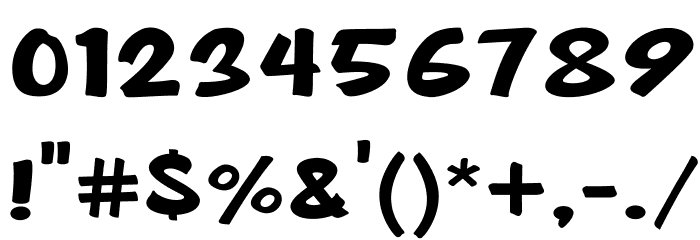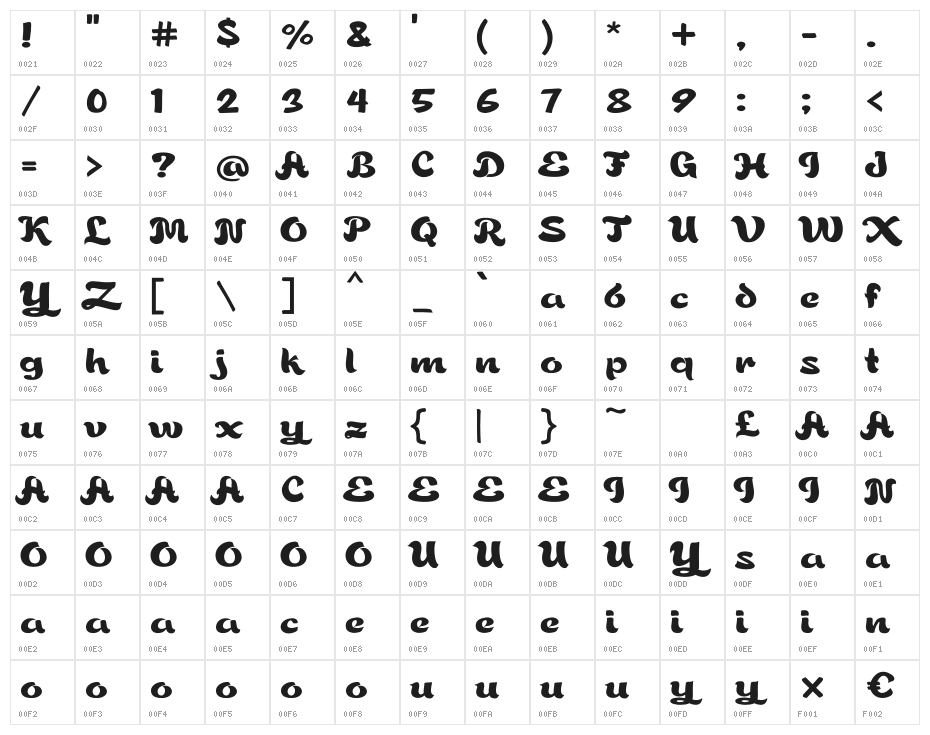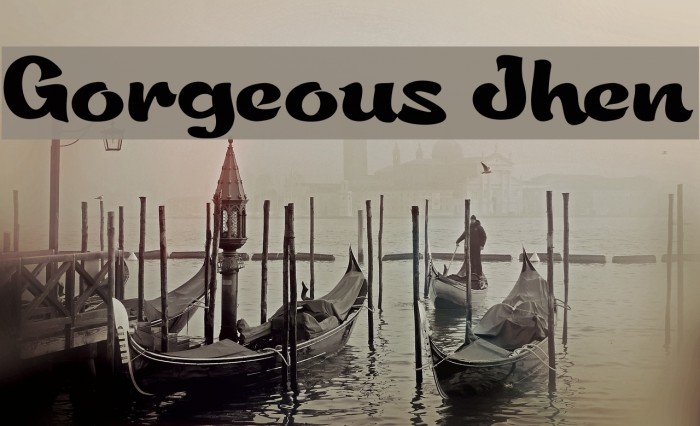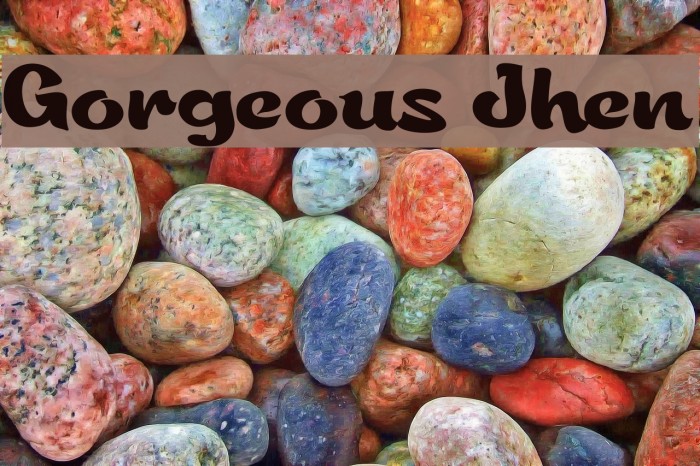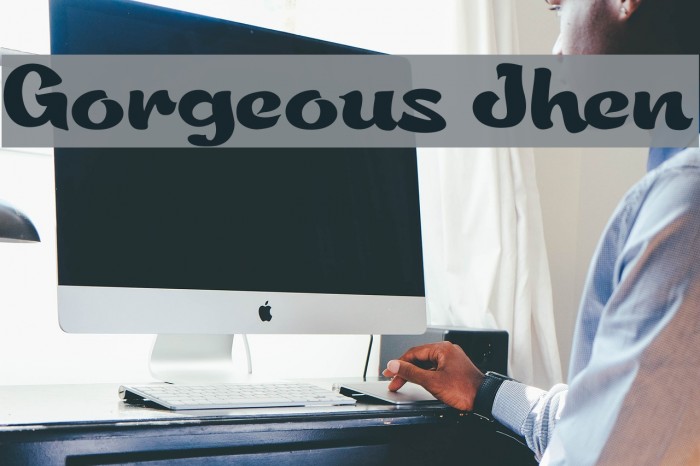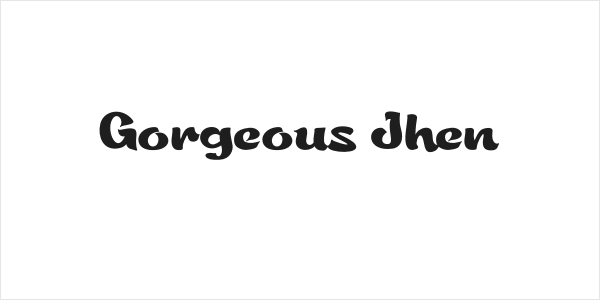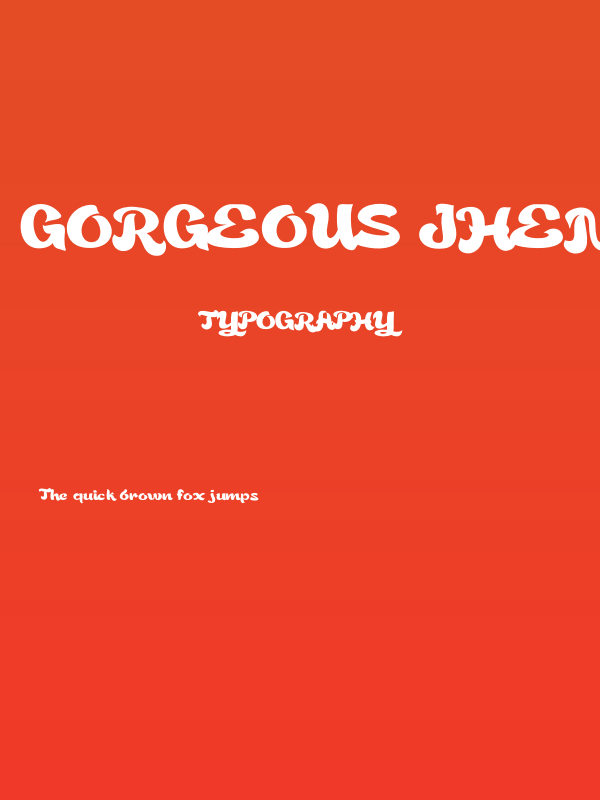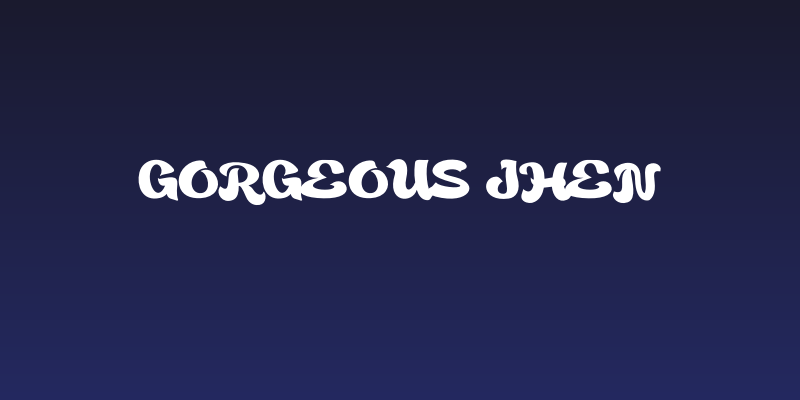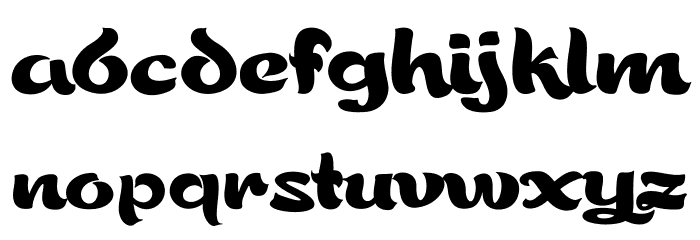
Gorgeous Jhen Font
Gorgeous Jhen Description
This font features a bold and expressive style with a strong presence. The characters are crafted with thick strokes and rounded edges, giving it a playful yet assertive look. The uppercase letters are particularly striking, with a sense of movement and flair, while the lowercase letters maintain a consistent flow. The numerals and special characters are equally bold, ensuring readability and impact. This font's unique style makes it suitable for projects that require a touch of personality and boldness.
| Proposed Projects | Ideal for branding, poster design, headlines, and creative projects that require a bold statement. |